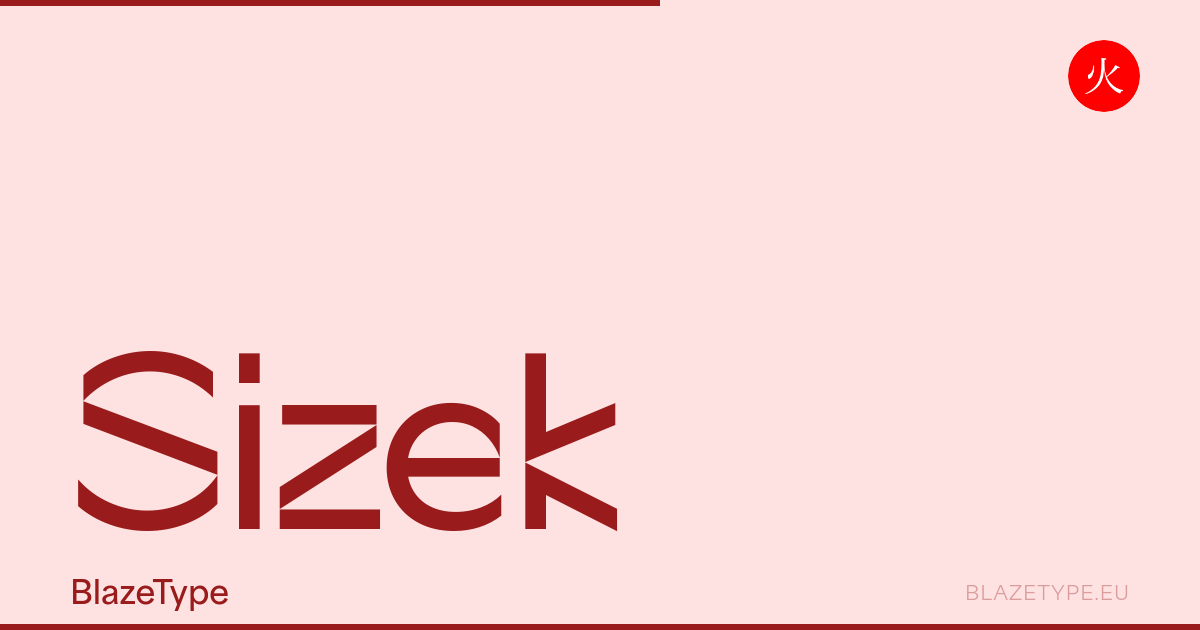
Sizek Pro specimen
Sizek Pro
Blaze Type
Sizek Pro is an experimental display typeface that reimagines and deconstructs the classical calligraphic structure of letters. It takes inspiration from the digital age's glitches, lags, and damaged or half-loaded files, reflecting the challenges and quirks of working with technology.
Sizek, by Sandro Bonomo